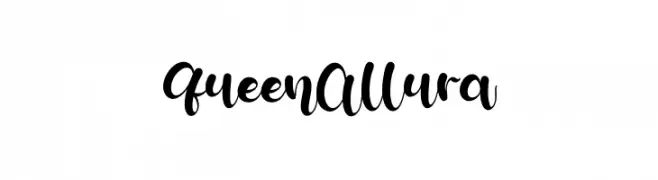
An elegant and ornate script font with intricate swirls and flourishes.
Ornamental font with intricate, triangular patterned glyphs.
An elegant script font with intricate loops and high contrast, perfect for formal and decorative use.
An elegant script font with flowing, cursive letterforms and intricate flourishes.
A modern, rounded sans-serif font with a clean and approachable design.
A bold, flowing script font with elegant curves and dynamic movement.
A modern, narrow sans-serif font with a clean and professional look.
An elegant and sophisticated serif typeface with classic proportions.
An elegant, flowing script font with bold uppercase and graceful lowercase letters.
Ornamental tile-patterned decorative font.
A graceful script font with flowing, connected strokes and elegant flourishes.
A bold iconographic font with archaeology-themed symbols.
A display font featuring Vespa scooters and related graphics.
Icon-based font with Parisian motifs and landmarks.
A whimsical pictogram font featuring diverse rat and mouse illustrations.
A bold, cursive font with elegant loops and decorative flourishes.
A bold, expressive script font with elegant, flowing letterforms.
An elegant, flowing script font with bold, cursive letterforms.
An elegant, italic script font with dramatic flourishes and vintage charm.
An elegant, calligraphic script font with ornate uppercase and flowing lowercase letters.
A decorative font with Easter-themed stained glass window illustrations.
A decorative dingbat font with detailed sea and beach illustrations.
A decorative serif font with bold letters in circular backgrounds and floral motifs.
A decorative font with intricate floral illustrations for each character.
Cartoon turtle illustrations replace standard alphanumeric characters.
A decorative font with letters encased in dreamcatcher motifs, featuring feather details.